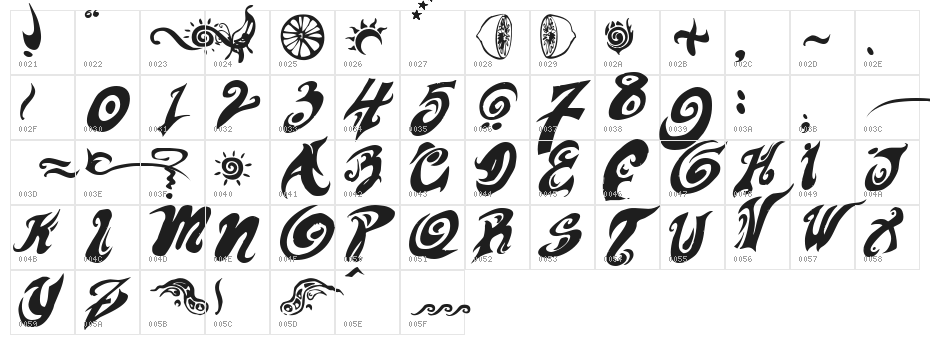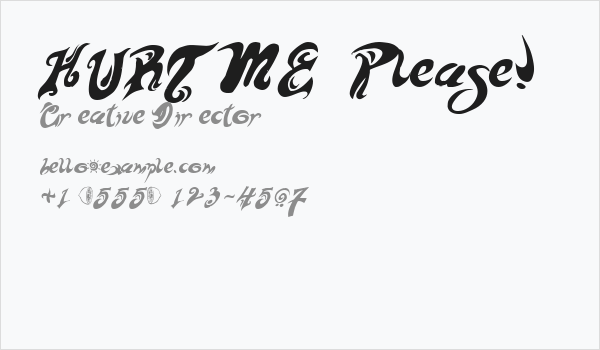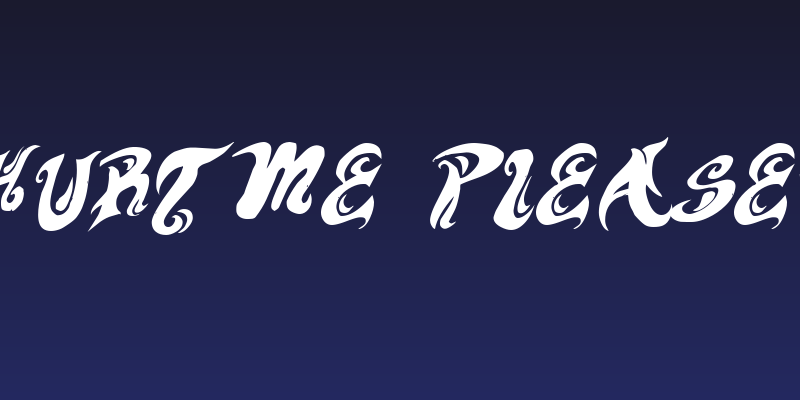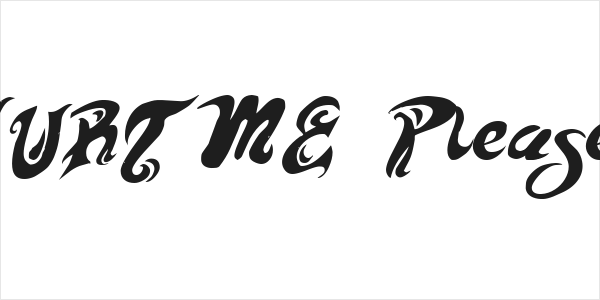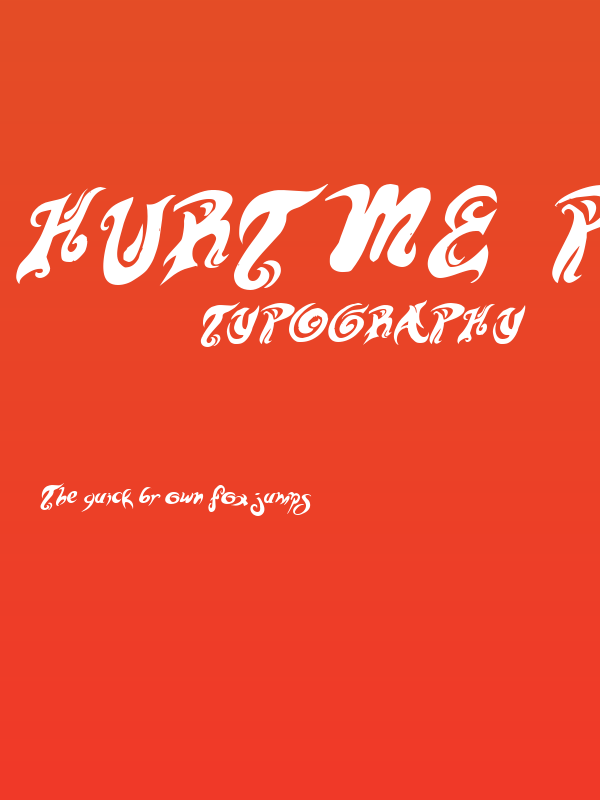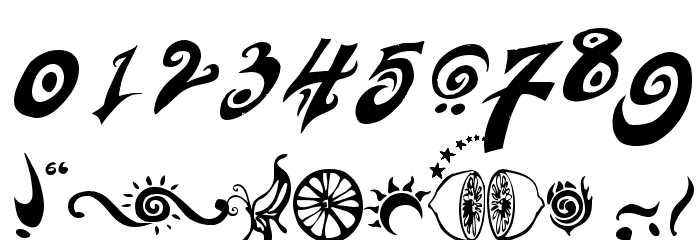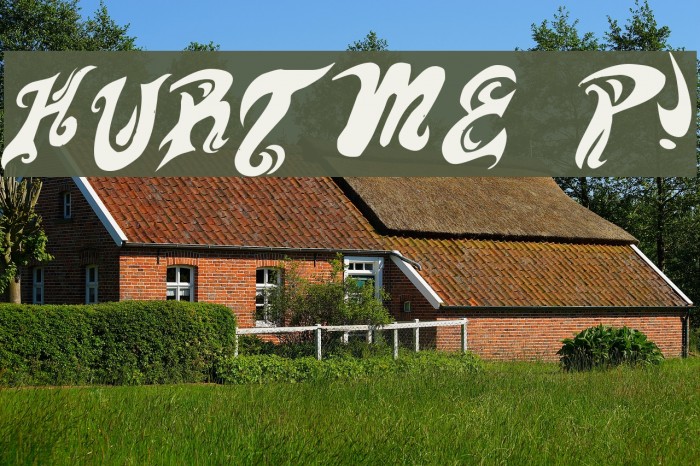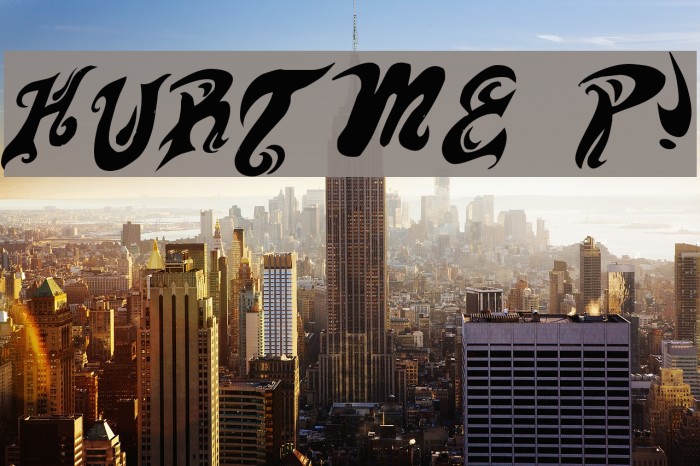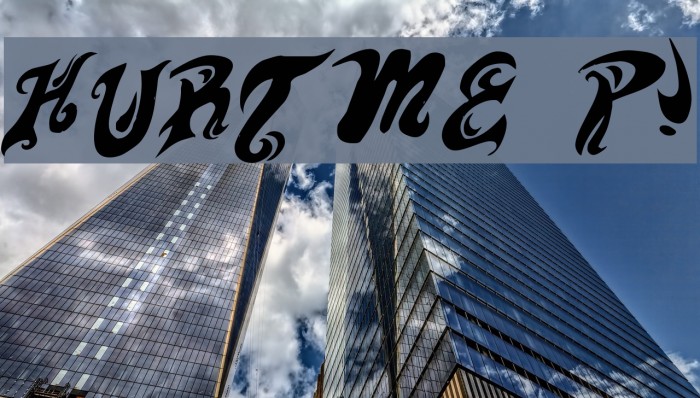
HURT ME Please! Font
HURT ME Please! Description
This font features a highly decorative and artistic style, characterized by its bold and intricate design. Each letter is adorned with unique flourishes and embellishments, giving it a dynamic and whimsical appearance. The strokes are thick and varied, creating a sense of movement and energy. The font combines elements of calligraphy and fantasy, making it stand out with its dramatic flair. The numbers and special characters follow the same ornate theme, ensuring consistency throughout. This font is ideal for projects that require a bold statement and a touch of creativity.